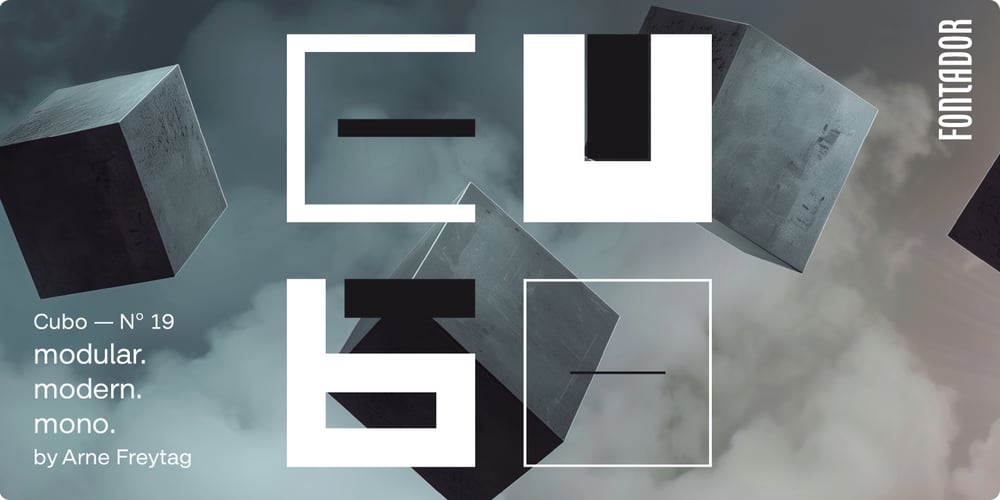
Cubo
Cubo font
Cubo Font Family was designed by Arne Freytag and published by Fontador. Cubo contains 16 styles and family package options. Cubo is a constructed sans serif based on a square basic form. Each glyph follows this strict grid, which keeps the font monospaced and gives it a consistent structure.The optional ‘fill’ cuts make it possible to fill all characters with dummy material so that not only the shapes harmonise, but also the grey value remains balanced. This creates a compact, visually balanced typography that is particularly strong in modular designs.Cubo is ideal for logotypes, bold headlines and decorative typesetting. Its modular character invites creative experimentation – building, combining, modelling and inventing … Its simple geometry and consistent construction lend any design an unmistakable, modern aesthetic.